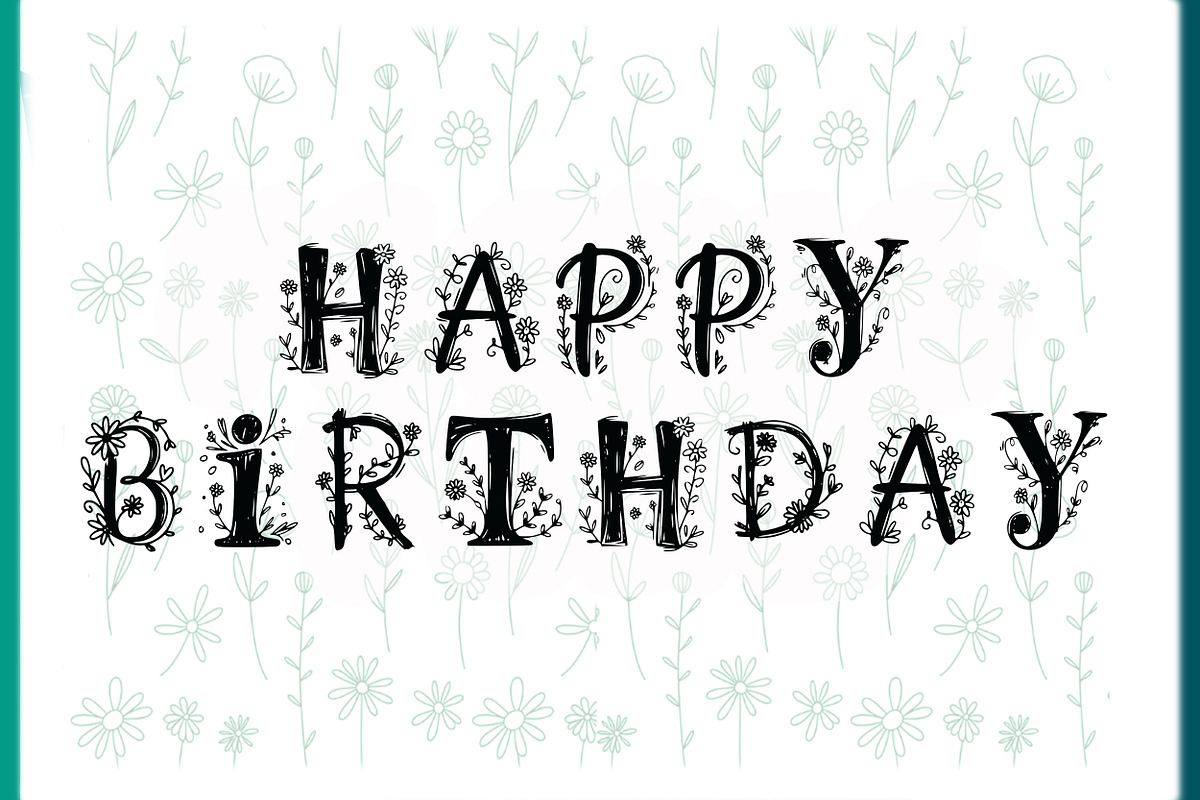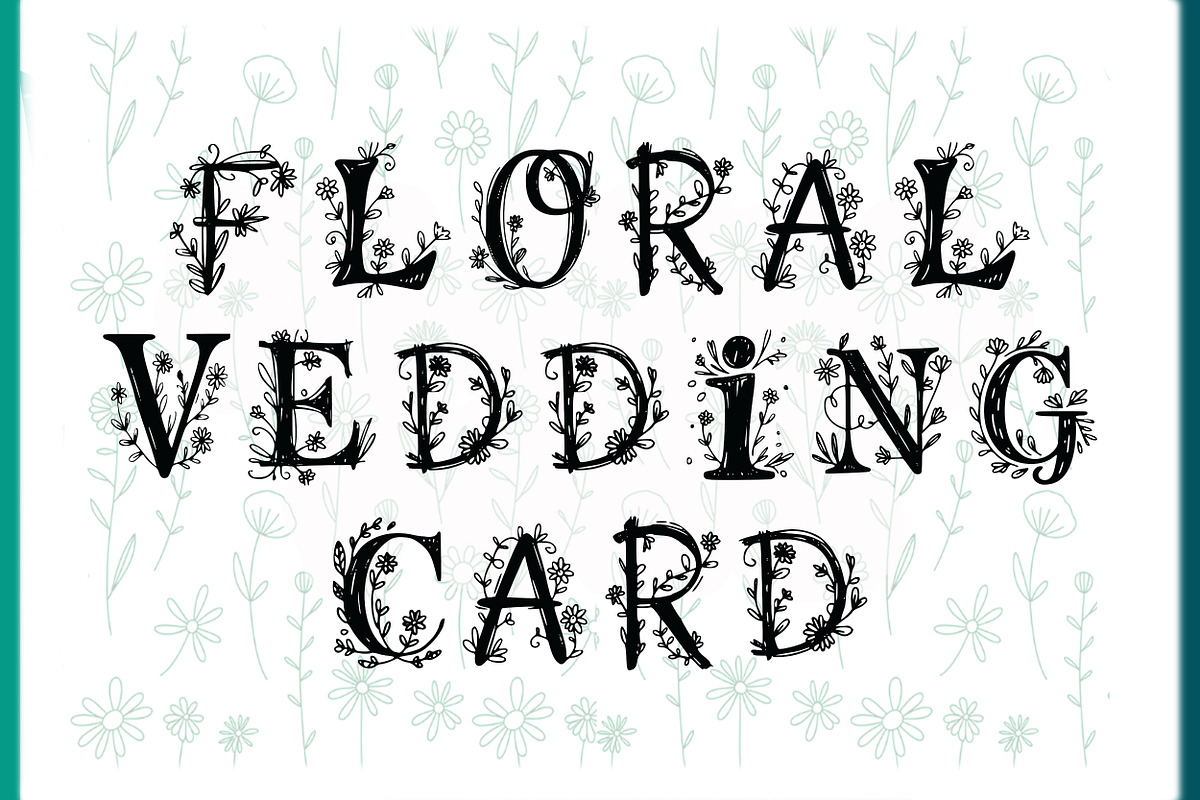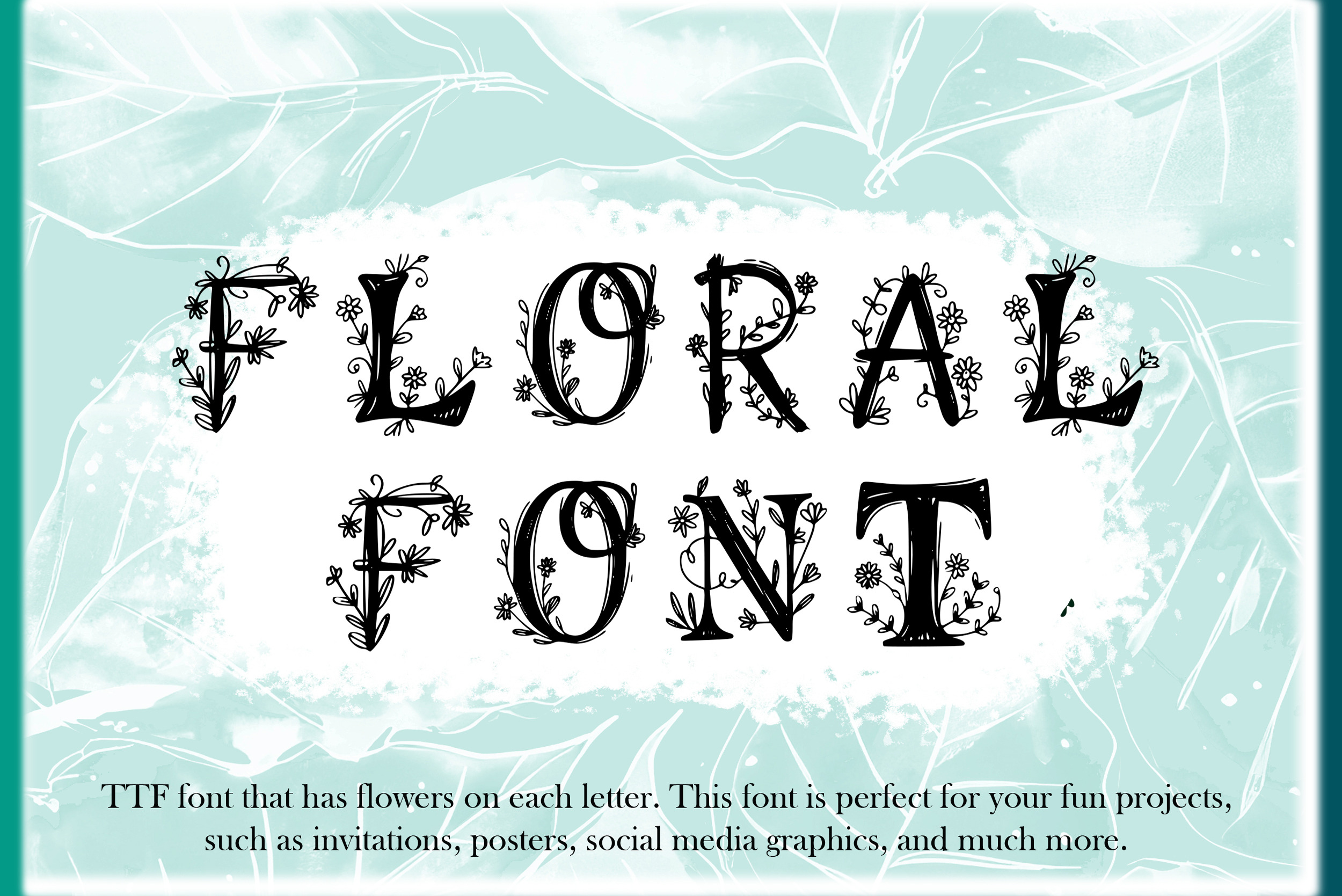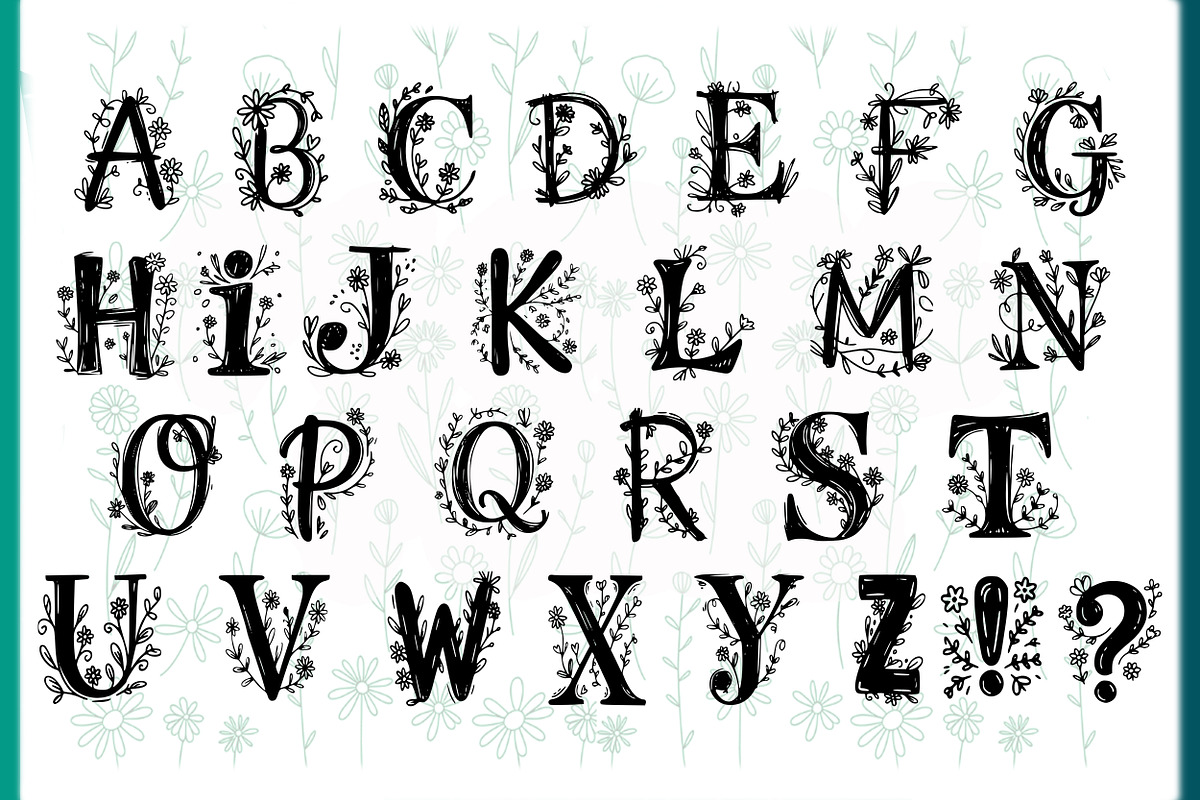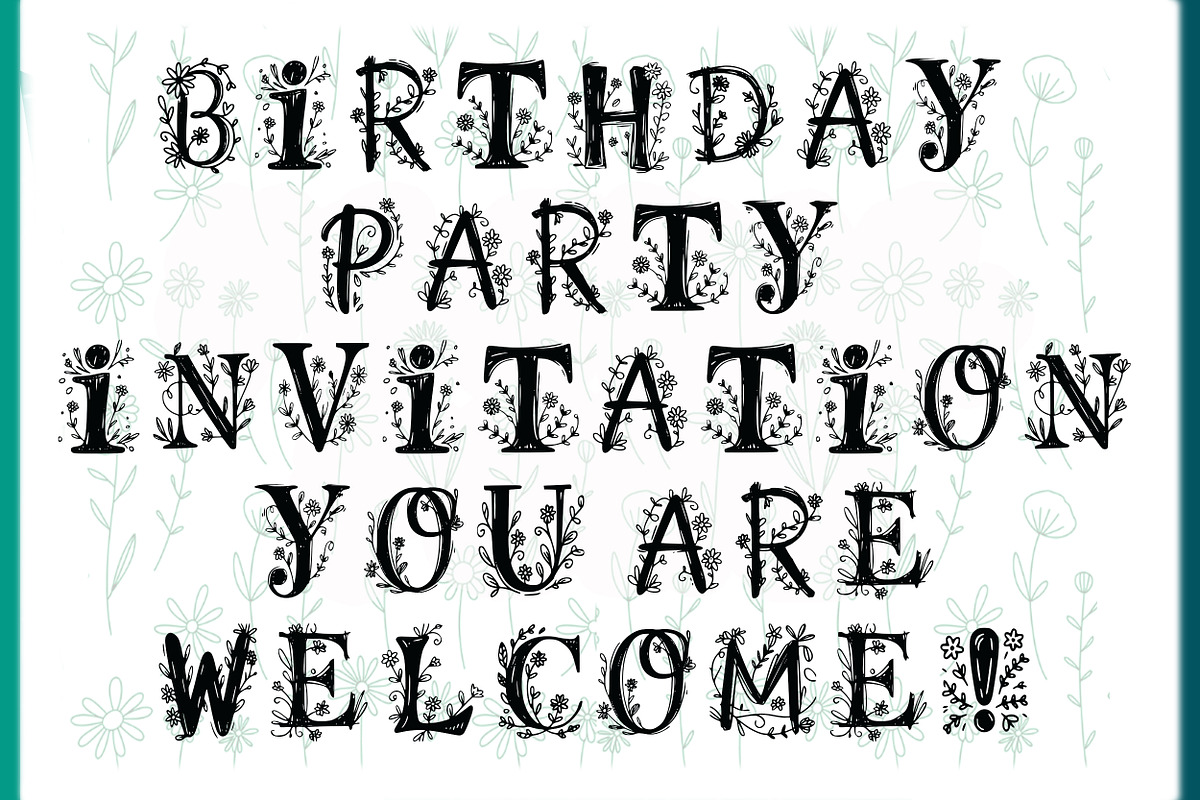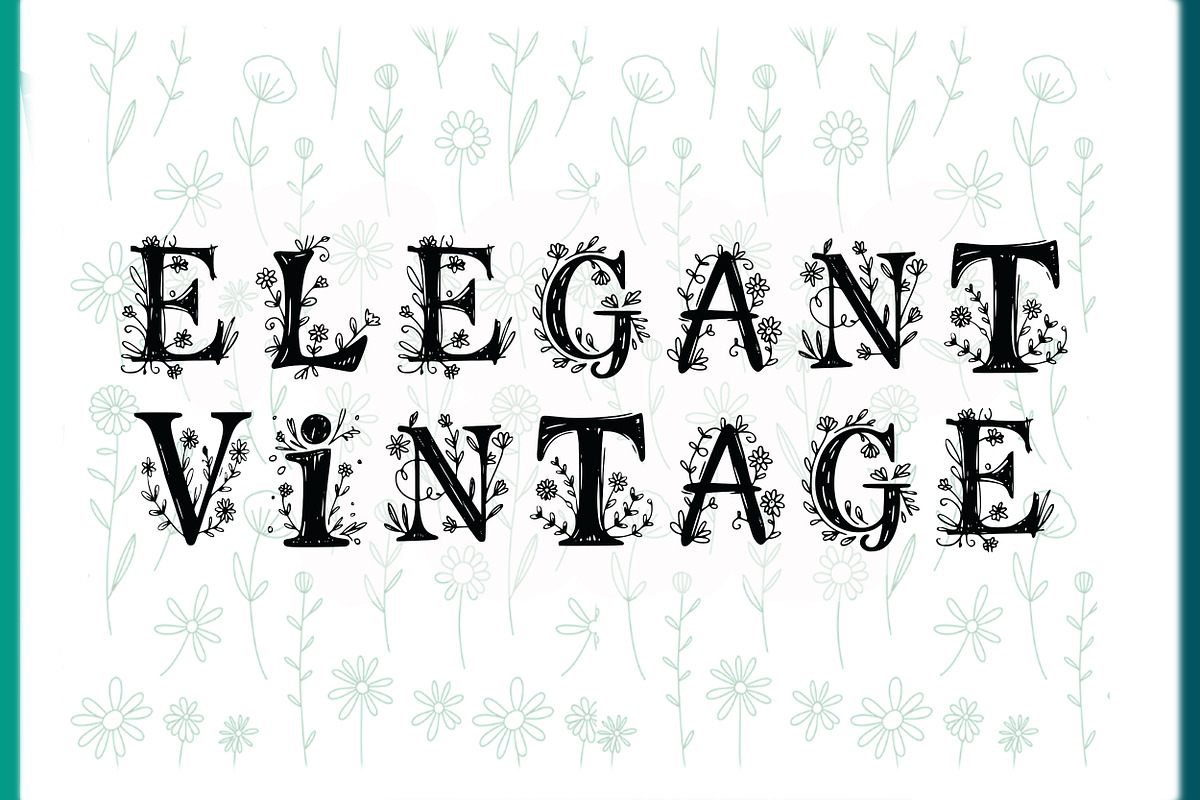
Floral decorative TTF font
Floral is a charming decorative TTF font where every letter is adorned with playful plant elements. Its organic, whimsical style makes it an excellent choice for fun and creative projects—such as invitations, posters, greeting cards, social media graphics, branding, and more. Add a touch of nature-inspired personality to any design with Floral’s unique leafy characters.